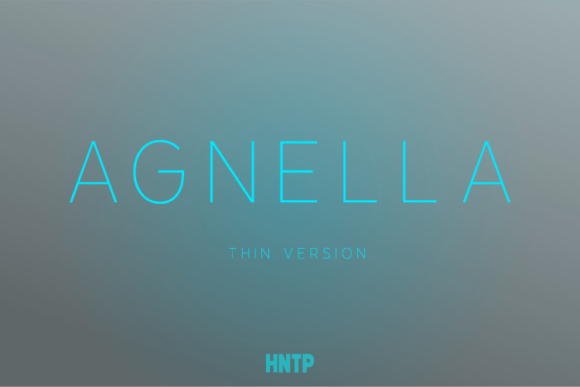
Meet Agnella Thin, the sans-serif font that defies expectations. Inspired by the grace of calligraphy and the precision of geometry, Agnella exudes both elegance and power. Its sharp angles and fluid curves dance together, creating a visual symphony that captivates. Agnella's delicate strokes add a touch of femininity and sophistication to any design, inviting you to explore the depths of your creativity. From alluring branding to captivating headlines, Agnella Thin transforms your words into works of art, leaving an unforgettable impression on every page. Unleash the allure of Agnella today and elevate your designs to new heights of beauty and distinction.